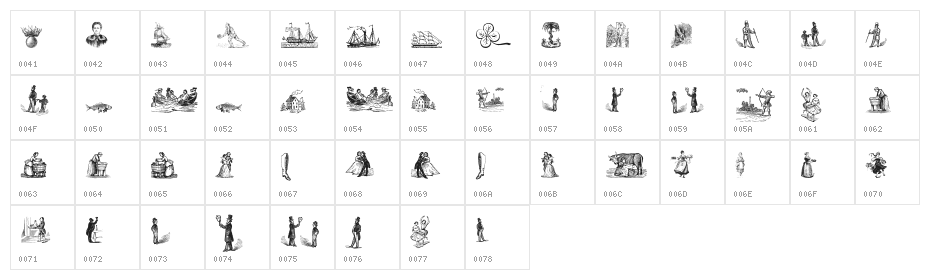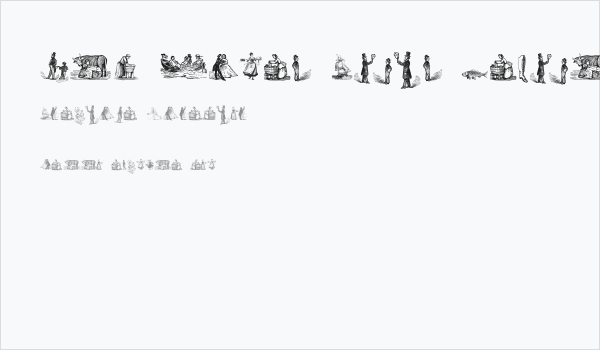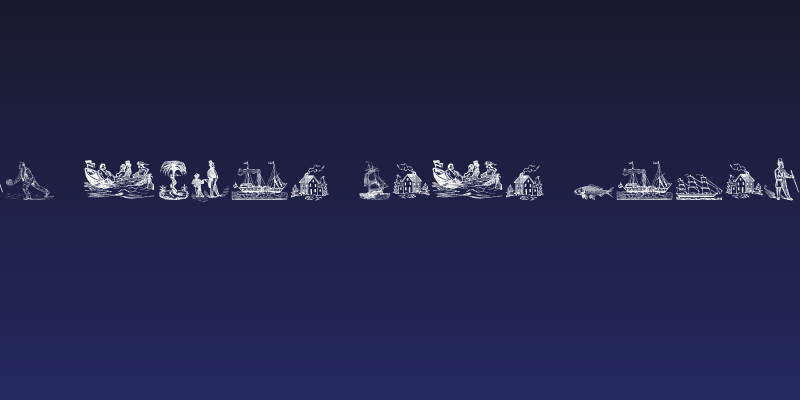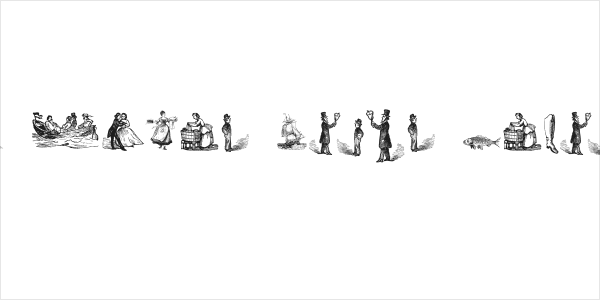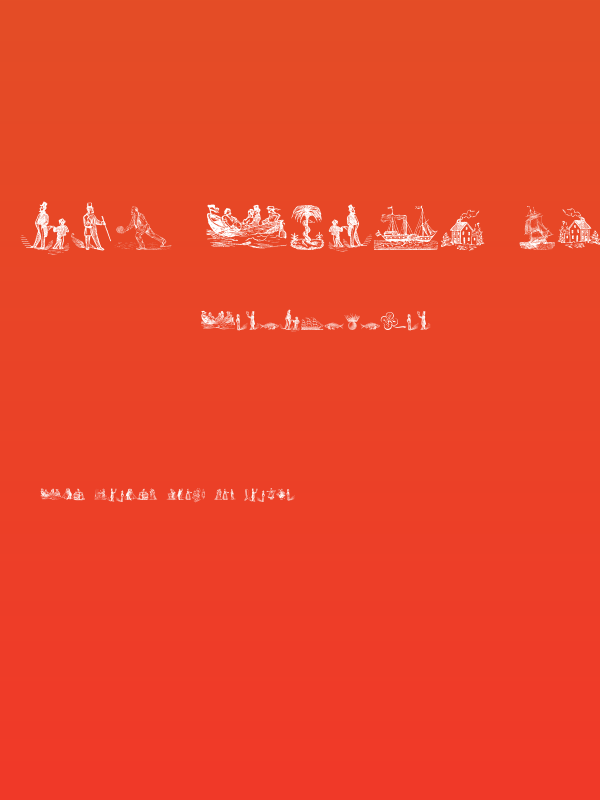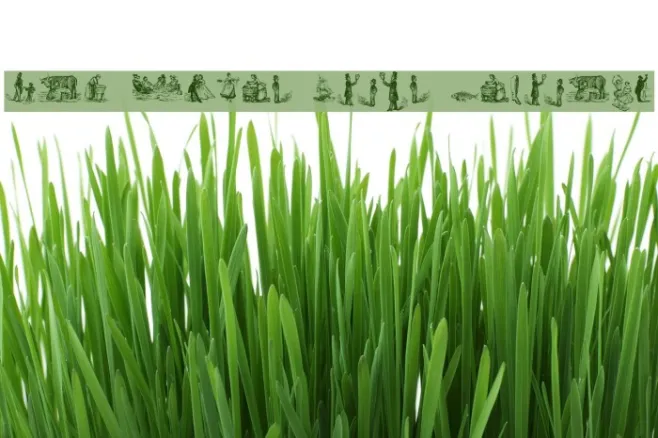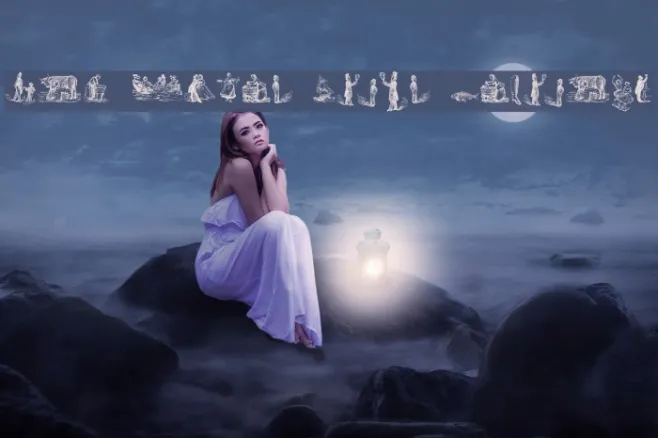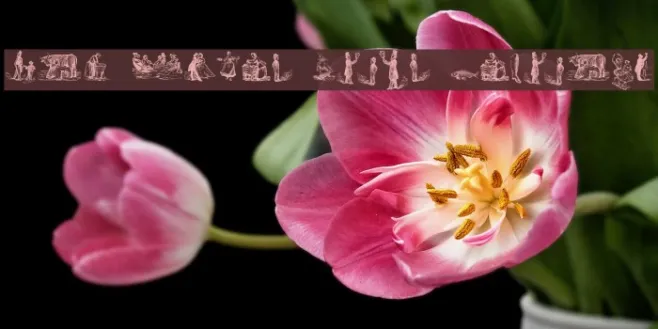
Old Times Cuts Regular Font
Old Times Cuts Regular Description
A collection of detailed, vintage-style black-and-white engravings depicting people, animals, ships, and everyday scenes, reminiscent of 19th-century illustrations. Each character or symbol is highly illustrative, with fine line work and shading, evoking an old-fashioned, historical feel.
| Overall Style | Vintage, Decorative, Historical |
| Use Case | Decorative elements, Illustrations, Themed graphics |
| Proposed Projects | Book illustrations, historical posters, invitations, decorative borders, educational materials, themed branding. |